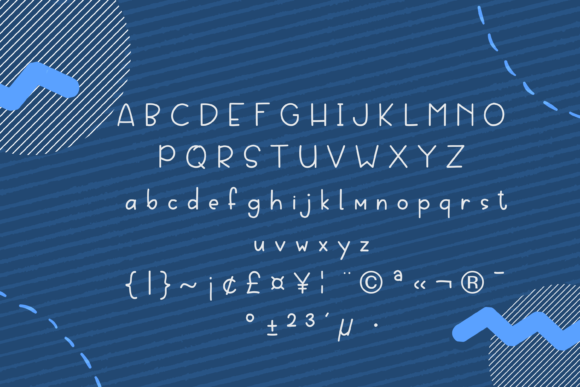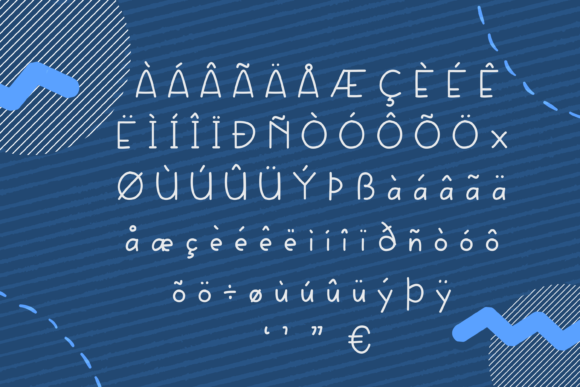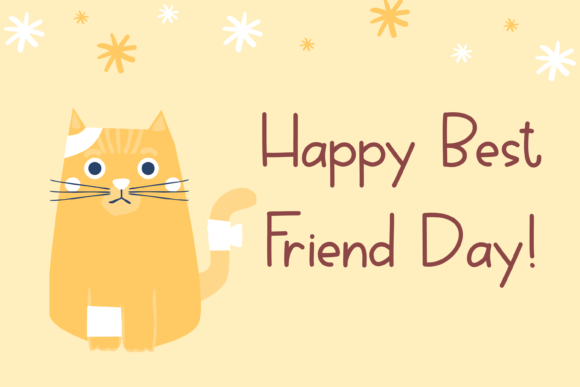
Introduction to Lorjuk Font
Have you ever stared at a blank canvas, waiting for the perfect design to materialize? I’m sure many of us have been there. As designers, we’re constantly on the lookout for that special something to elevate our creative projects. And sometimes, it’s just a font that makes all the difference. That’s where the Lorjuk Font comes in – a friendly and cute sans serif font that’s about to become your new go-to design resource.
What sets Lorjuk Font apart is its unique blend of curvy lines, readability, and down-to-earth style. Whether you’re working on a project with a transparent background or a high-quality print material, this font will add a touch of elegance and sophistication to your design. And the best part? You can download it for free, making it an invaluable asset for any creative project.
Key Features of Lorjuk Font
- High-quality design resource with a unique and creative style, perfect for various design projects.
- Comes with a transparent background, allowing for seamless integration into various design elements and backgrounds.
- Designed to be highly legible at various resolutions and sizes, from small text to large headings.
- Supports a wide range of languages, making it a versatile choice for designers working on international projects.
Honest Review: Lorjuk Font
I recently had the chance to work with the Lorjuk Font for a creative project, and I must say it’s been a game-changer. This font is perfect for designers who want a high-quality, unique look without breaking the bank.
Here are some of the things that work well:
- ✨ Unique design aesthetic: The Lorjuk Font has a distinct style that’s both modern and elegant.
- ✨ High-quality design: The font is well-designed and scalable, making it perfect for a variety of uses.
- ⚠️ Limited transparency options: The Lorjuk Font only comes with a transparent background, which can be limiting for designers who need more flexibility.
- ⚠️ Limited customization options: While the font itself is well-designed, there are limited customization options available.
Overall, I’m really impressed with the Lorjuk Font. It’s a great design resource for anyone looking for a high-quality, unique font without breaking the bank. With a little creativity, the limitations of the font can be overcome, and the results are well worth it.
Tips for Getting the Most Out of Lorjuk Font
For best results, use the Lorjuk Font on a free download template or design resource. This will allow you to easily customize and adjust the font to fit your needs. Additionally, consider using the Lorjuk Font on a transparent background to create a unique and eye-catching design.
The Lorjuk Font is a versatile design resource that can be used in a variety of creative projects, including logos, business cards, and marketing materials. It’s also a great choice for designers who want to create a high-quality, professional-looking design without breaking the bank.